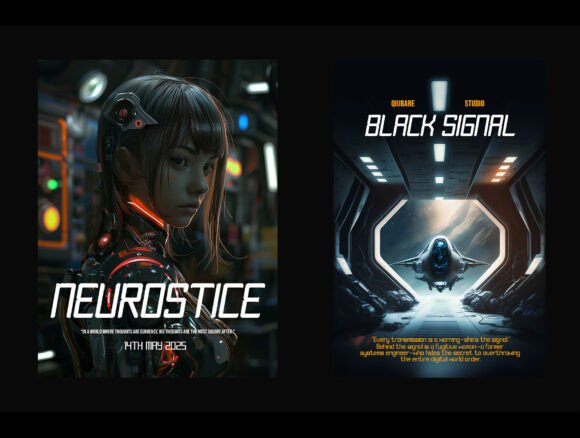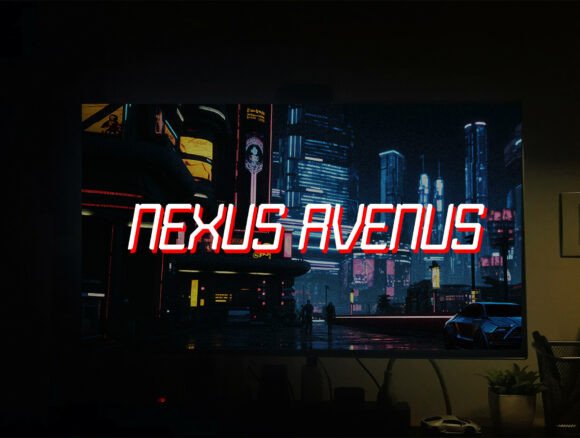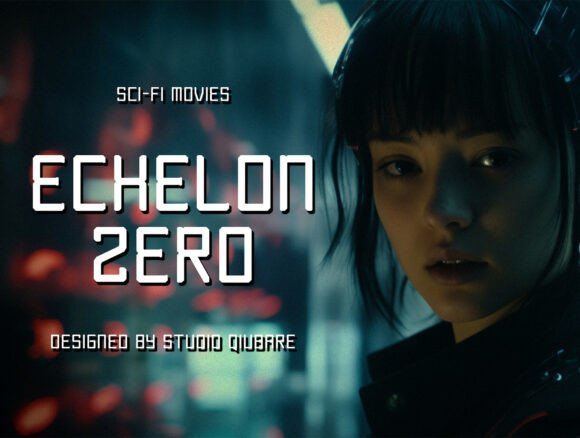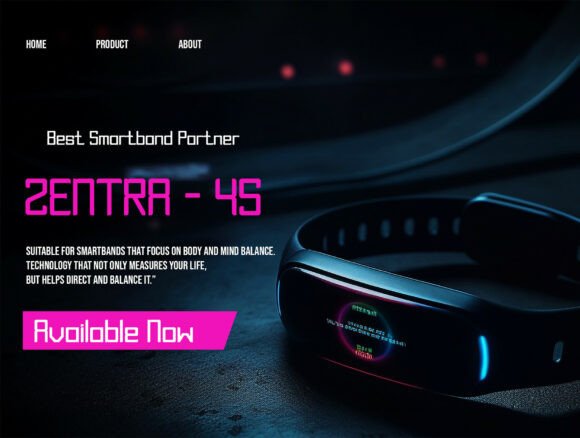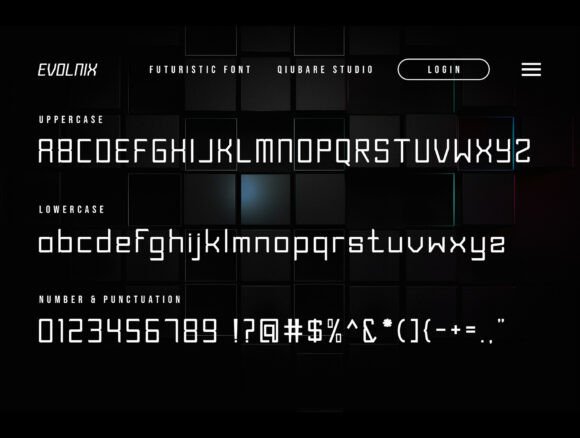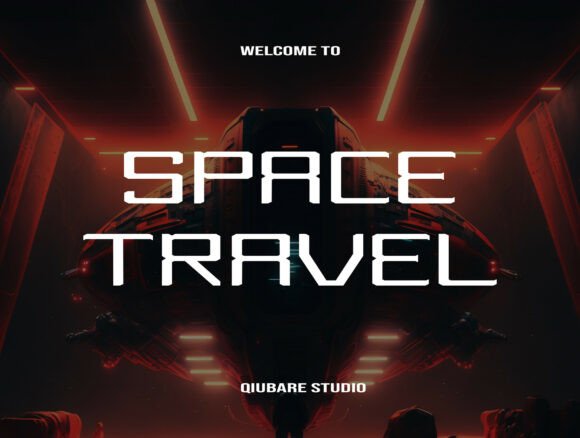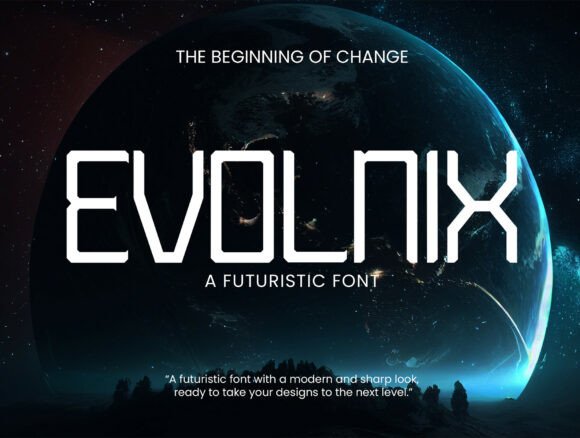
Unleash the Future of Design with Evolnix Font
Are you ready to venture into the next frontier of design? Look no further than the Evolnix font, a cutting-edge display face that embodies innovation and speed. Inspired by the sleek lines of sci-fi interfaces, the vibrant visuals of cyberpunk, and the modern branding of technology, Evolnix is the perfect choice for designers who want to make a statement.
A Font that Screams Innovation
Evolnix is more than just a font – it’s an experience. Its geometric construction, rounded edges, and balanced proportions create a sleek and innovative look that’s perfect for projects that demand a strong, forward-thinking identity. Whether you’re designing a logo, a movie title, or a brand identity, Evolnix brings a clean yet powerful presence that’s sure to turn heads.
The Perfect Font for Futuristic Projects
Evolnix is tailor-made for projects that require a futuristic and modern edge. Its ultra-modern silhouette demands a dark, atmospheric backdrop to truly shine, especially when enhanced with neon glows or metallic textures. Here are some of the ideal projects for the Evolnix font:
- Sci-fi movie titles: Add a touch of futurism to your movie titles with Evolnix’s sleek and modern design.
- Gaming and esports branding: Give your gaming interface or esports logo a sharp, digital edge with Evolnix.
- Automotive branding: Bring a sense of speed and innovation to your automotive brand with Evolnix’s cutting-edge design.
- Futuristic tech startups: Establish your tech startup as a forward-thinking and innovative brand with Evolnix.
Why Choose Evolnix?
So, why choose Evolnix over other fonts? Here are just a few reasons:
- Unique and distinctive: Evolnix’s geometric construction and rounded edges create a unique and distinctive look that’s sure to stand out.
- Versatile: Evolnix is perfect for a wide range of projects, from movie titles to brand identities.
- Modern and futuristic: Evolnix’s ultra-modern silhouette is perfect for projects that require a futuristic and modern edge.
Tips for Using Evolnix
To get the most out of Evolnix, here are a few tips:
- Use a dark background: Evolnix’s ultra-modern silhouette demands a dark, atmospheric backdrop to truly shine.
- Add neon glows or metallic textures: Enhance Evolnix with neon glows or metallic textures to give it an extra edge.
- Experiment with different sizes: Evolnix is perfect for both large and small sizes, so don’t be afraid to experiment.
In conclusion, Evolnix is the perfect font for designers who want to venture into the next frontier of design. Its cutting-edge design, geometric construction, and balanced proportions create a sleek and innovative look that’s perfect for projects that demand a strong, forward-thinking identity. Whether you’re designing a sci-fi movie title, a gaming interface, or a futuristic tech startup, Evolnix is the perfect choice. So why wait? Download Evolnix today and unleash the future of design!